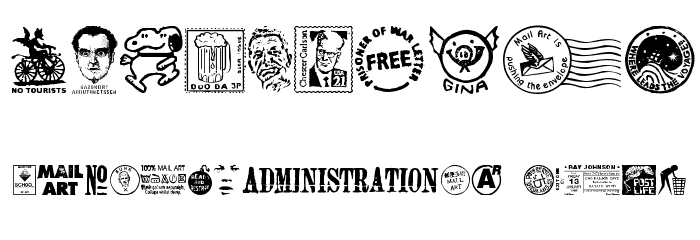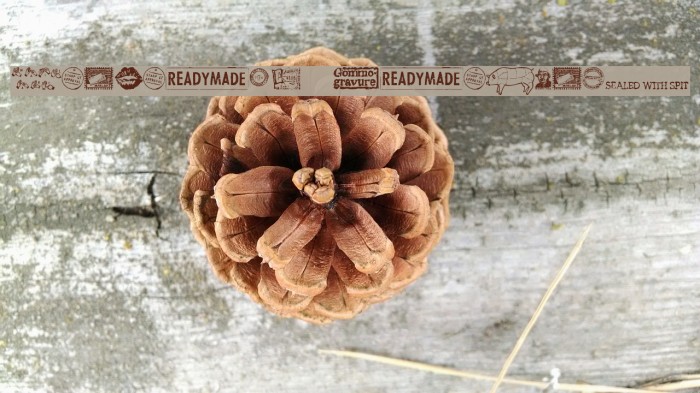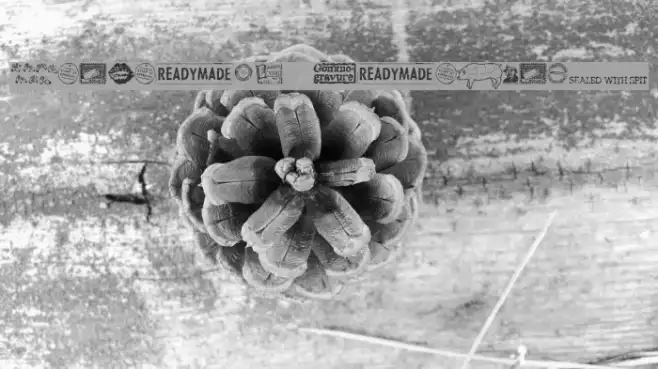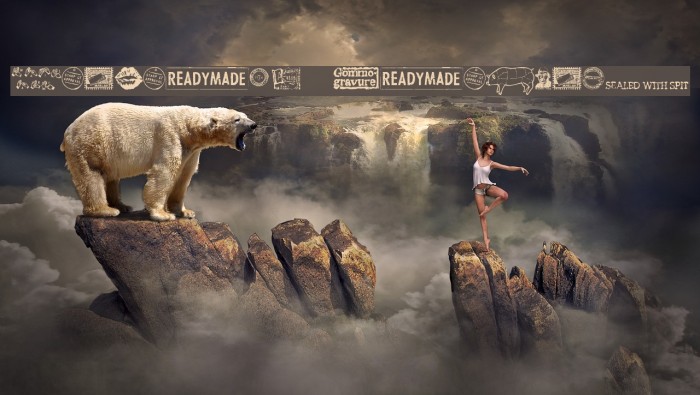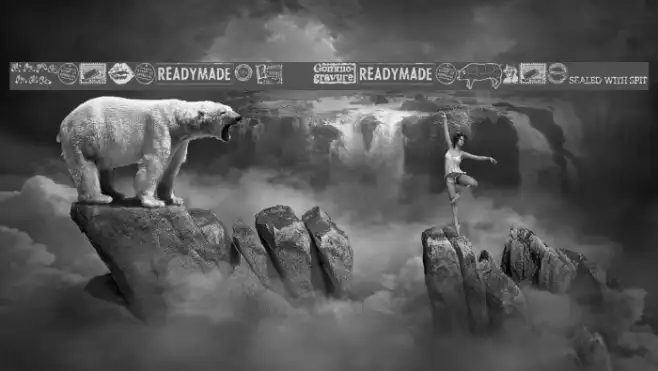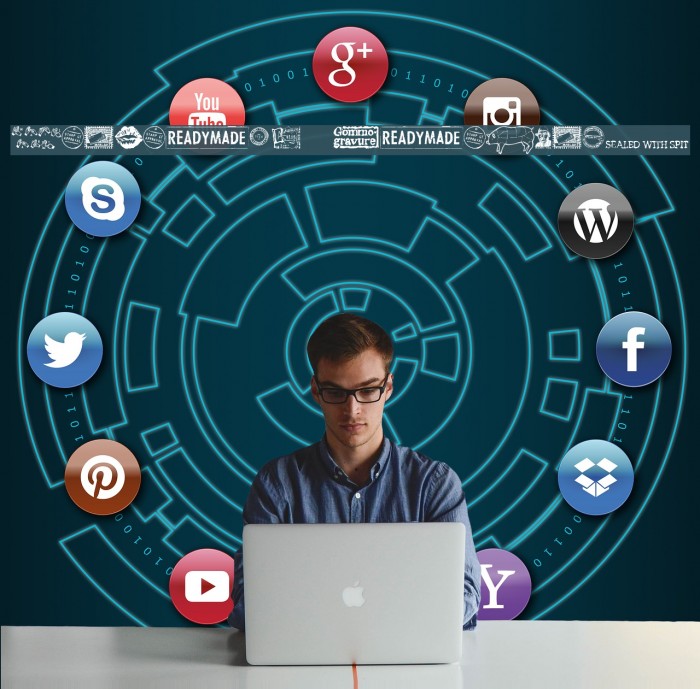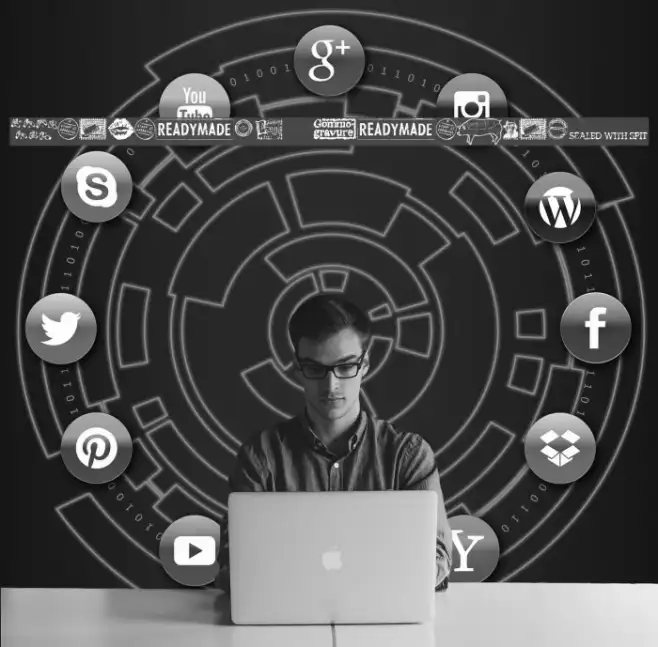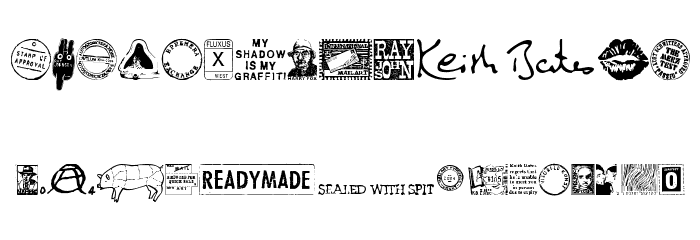
Mailart Graphics Font
Mailart Graphics Description
A highly eclectic and decorative collection of graphic stamps, icons, and text elements inspired by mail art and Dadaist aesthetics, featuring a mix of playful illustrations, rubber stamp effects, and various typographic styles ranging from typewriter to handwritten and bold sans-serif. The set includes both images and words, often with a distressed or stamped appearance, and is intended for creative, collage, or experimental design work.
| Overall Style | Decorative, Experimental, Vintage, Dadaist |
| Use Case | Logos, Posters, Collage, Artistic projects, Zines |
| Proposed Projects | Mail art, zines, collage, posters, experimental graphic design, scrapbooking, DIY projects. |